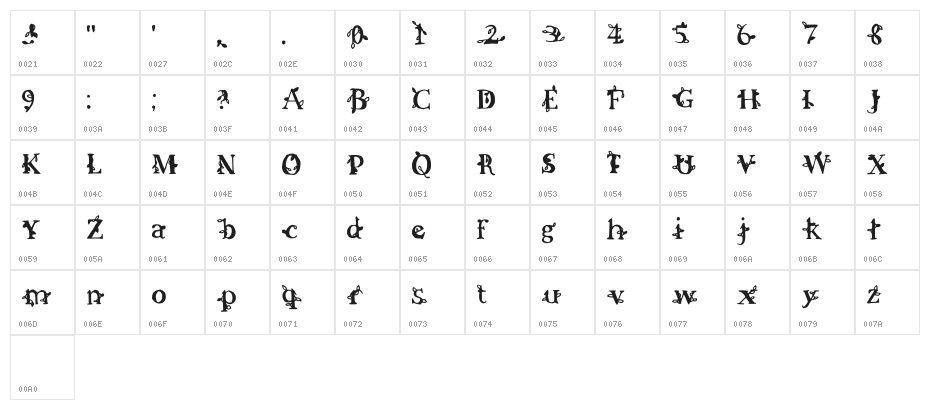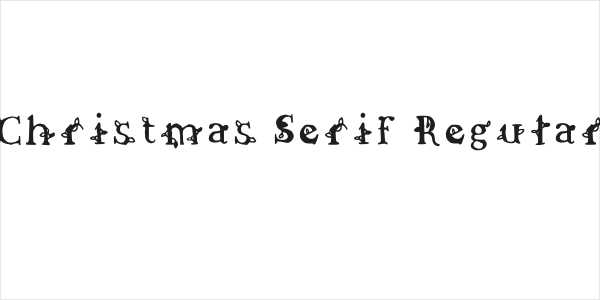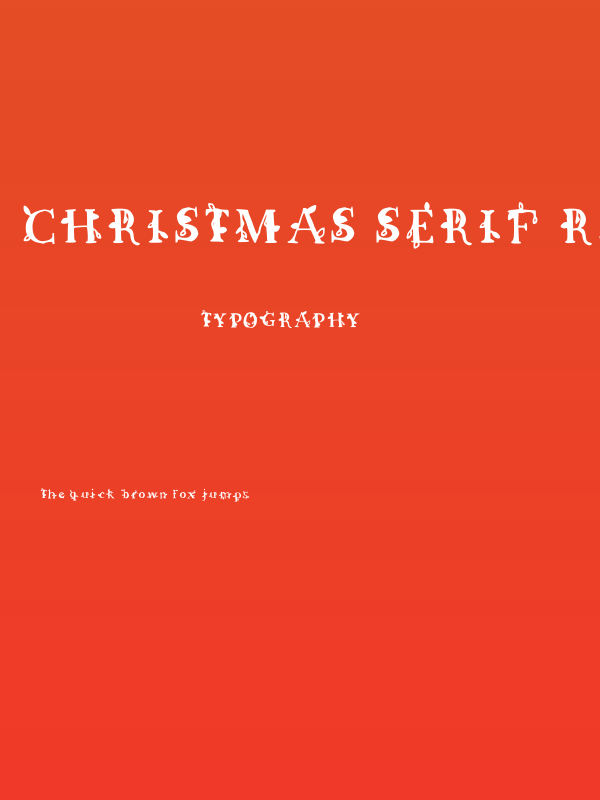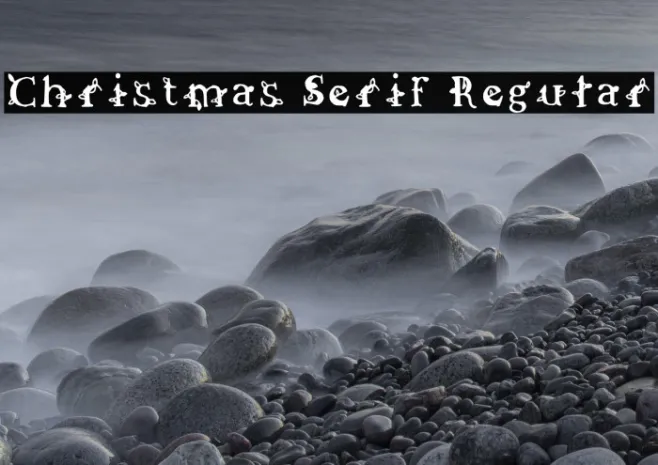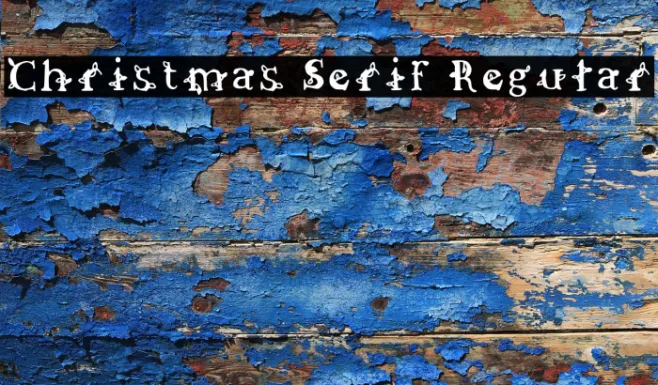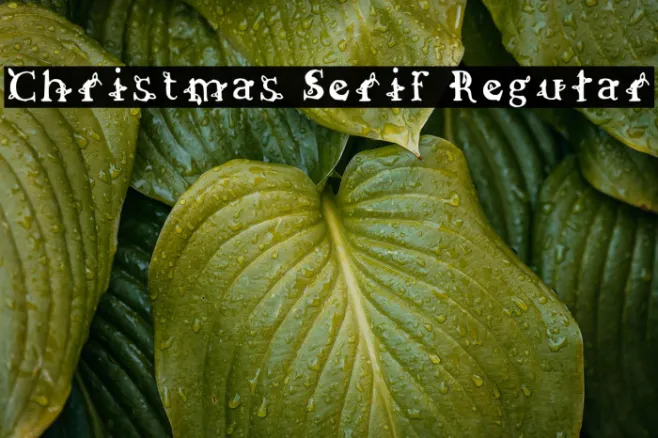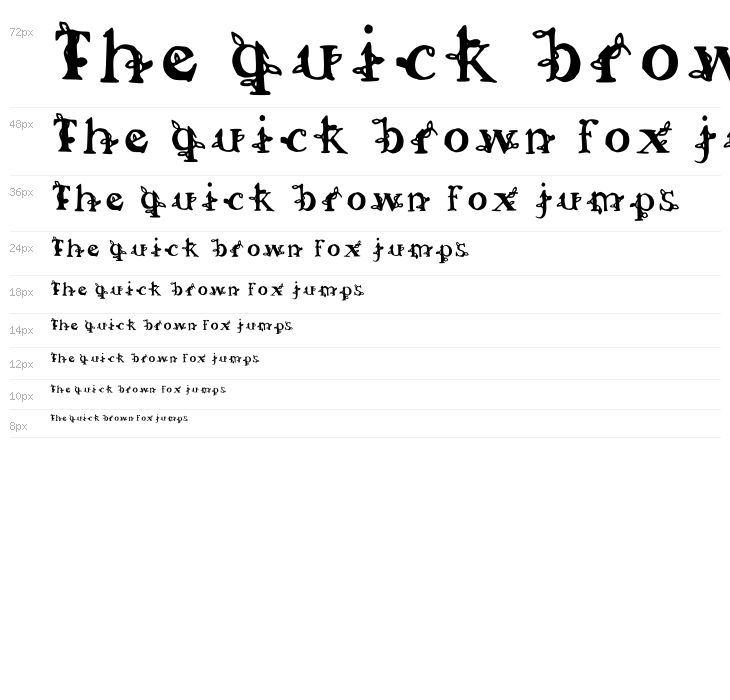
Christmas Serif Regular Font
Christmas Serif Regular Description
This font features a whimsical and festive design, perfect for holiday-themed projects. The characters are adorned with decorative elements reminiscent of Christmas ornaments, giving each letter a playful and unique appearance. The serif style adds a touch of elegance, while the embellishments provide a sense of joy and celebration. The font maintains a consistent weight throughout, ensuring readability despite its decorative nature. The numbers and special characters are equally adorned, making them suitable for creative displays.
| Use Case | Headlines, Logos, Decorative text |
| Proposed Projects | Ideal for holiday cards, festive banners, Christmas-themed posters, and decorative invitations. |